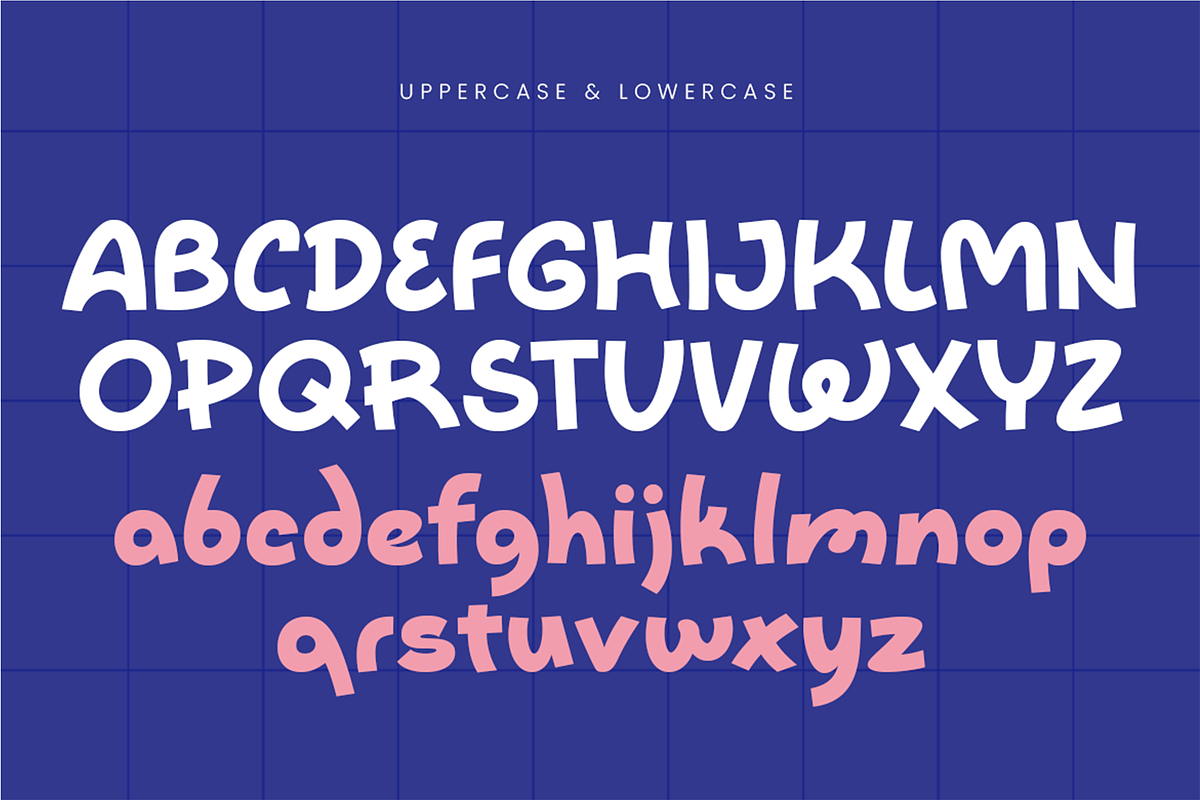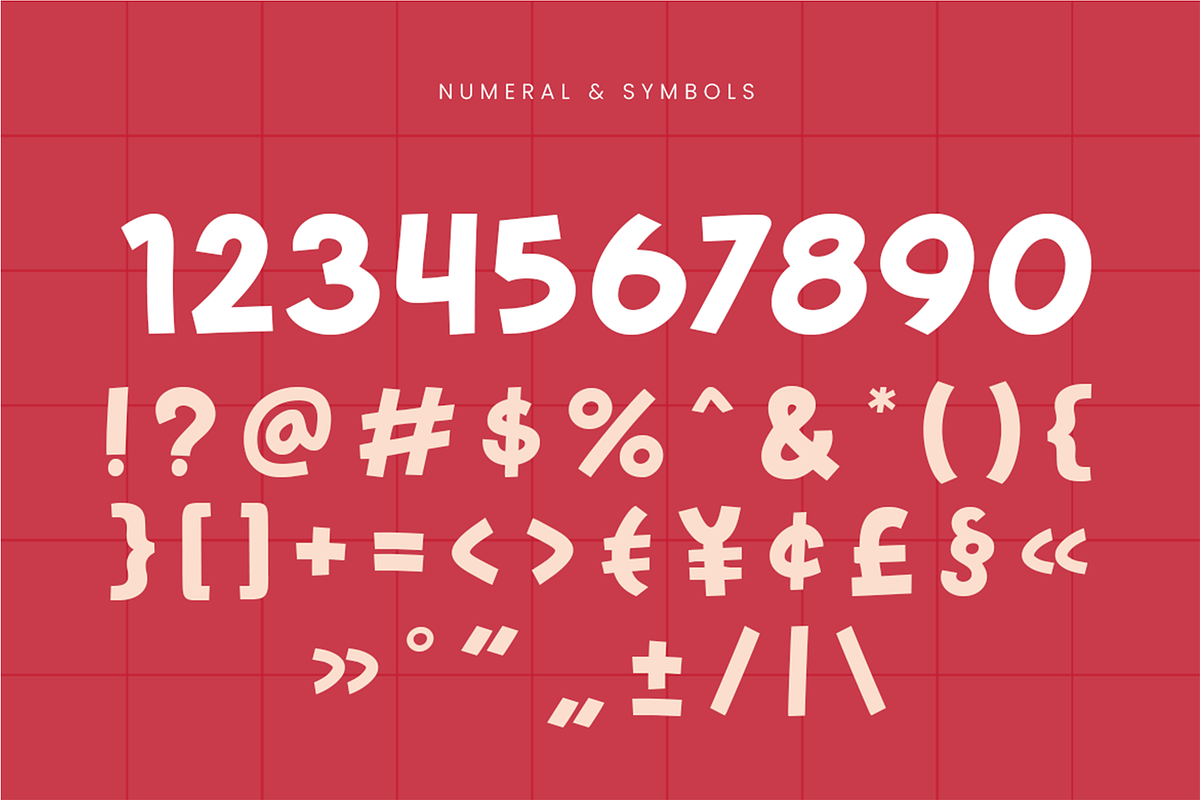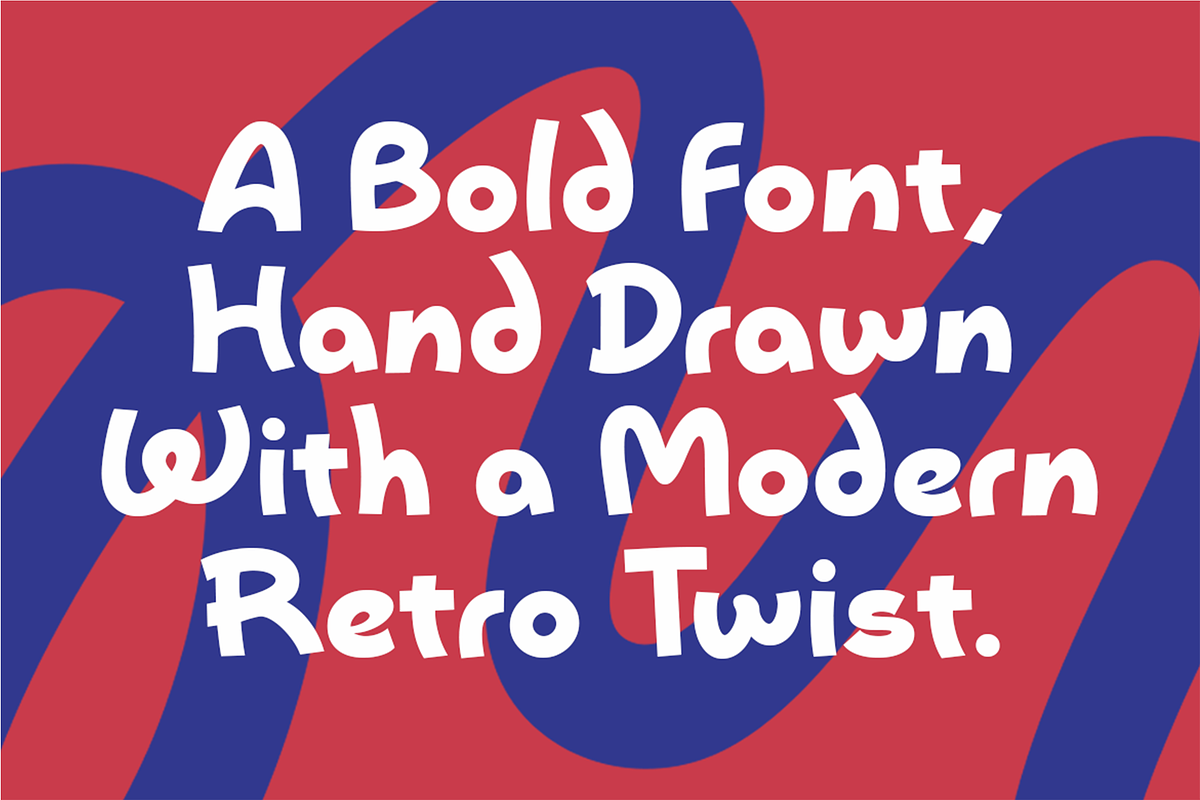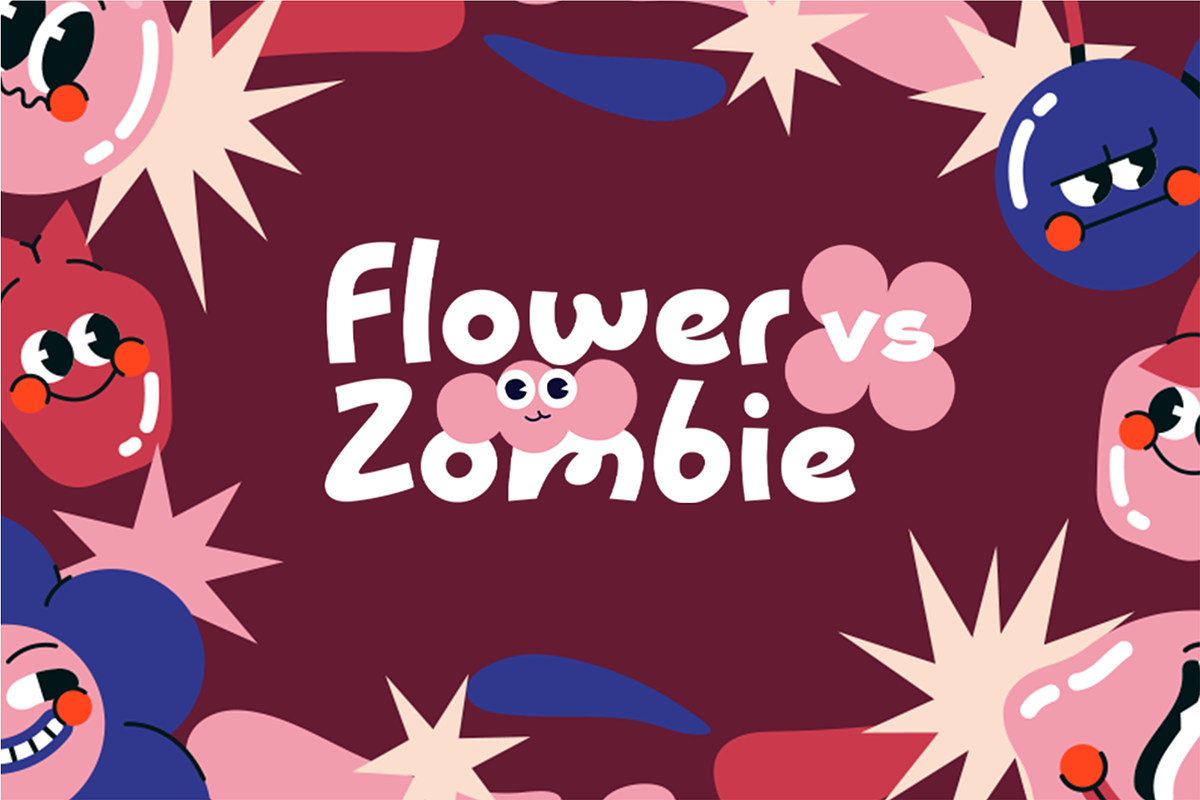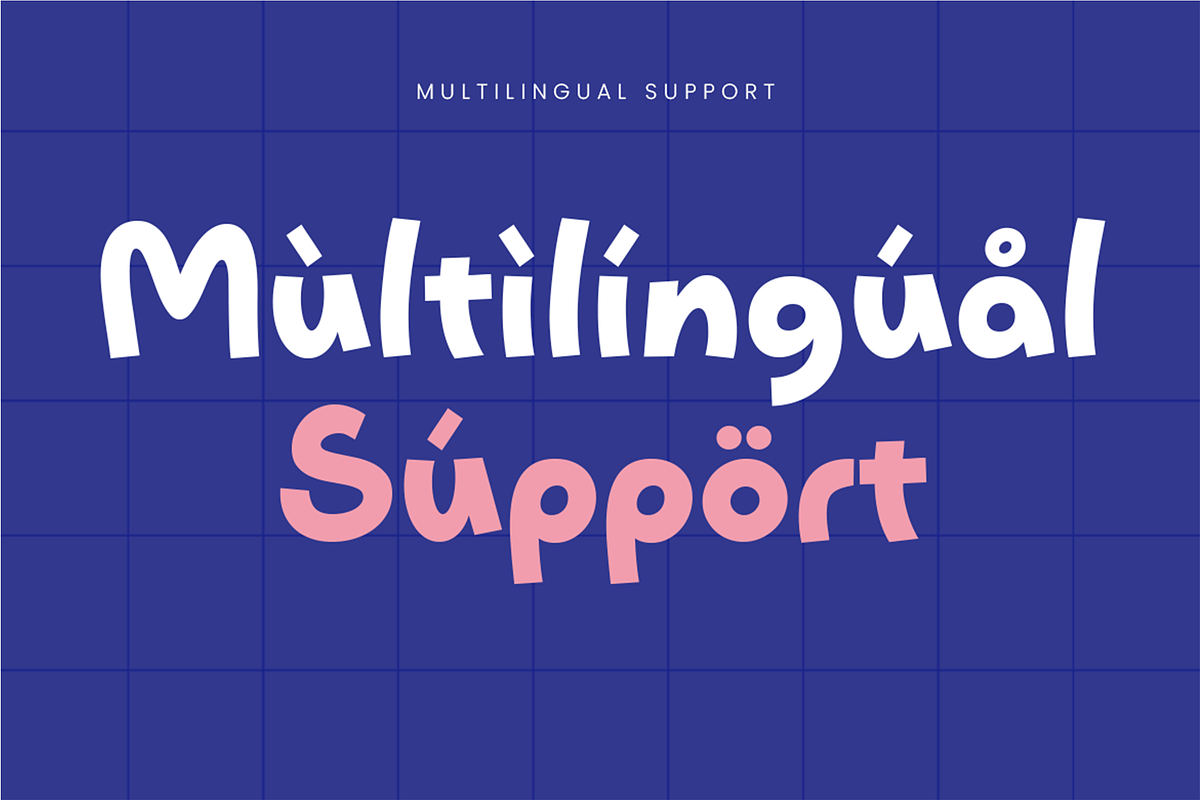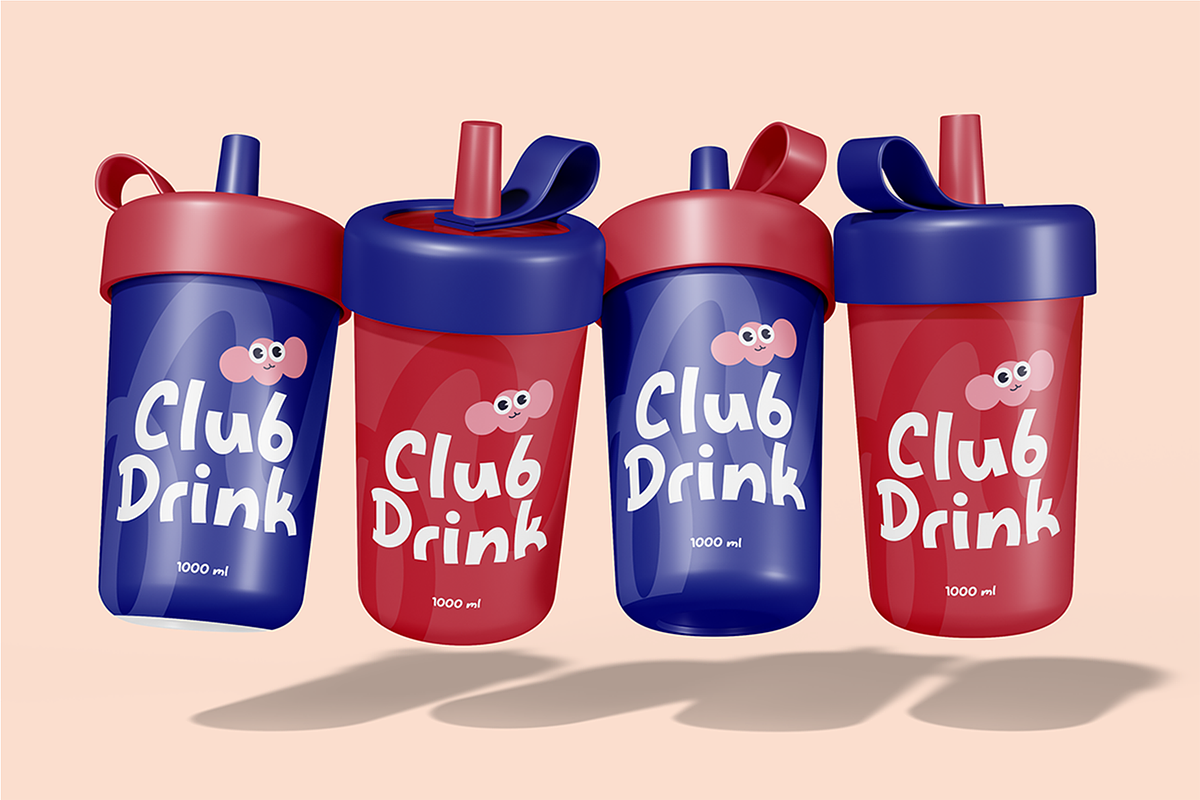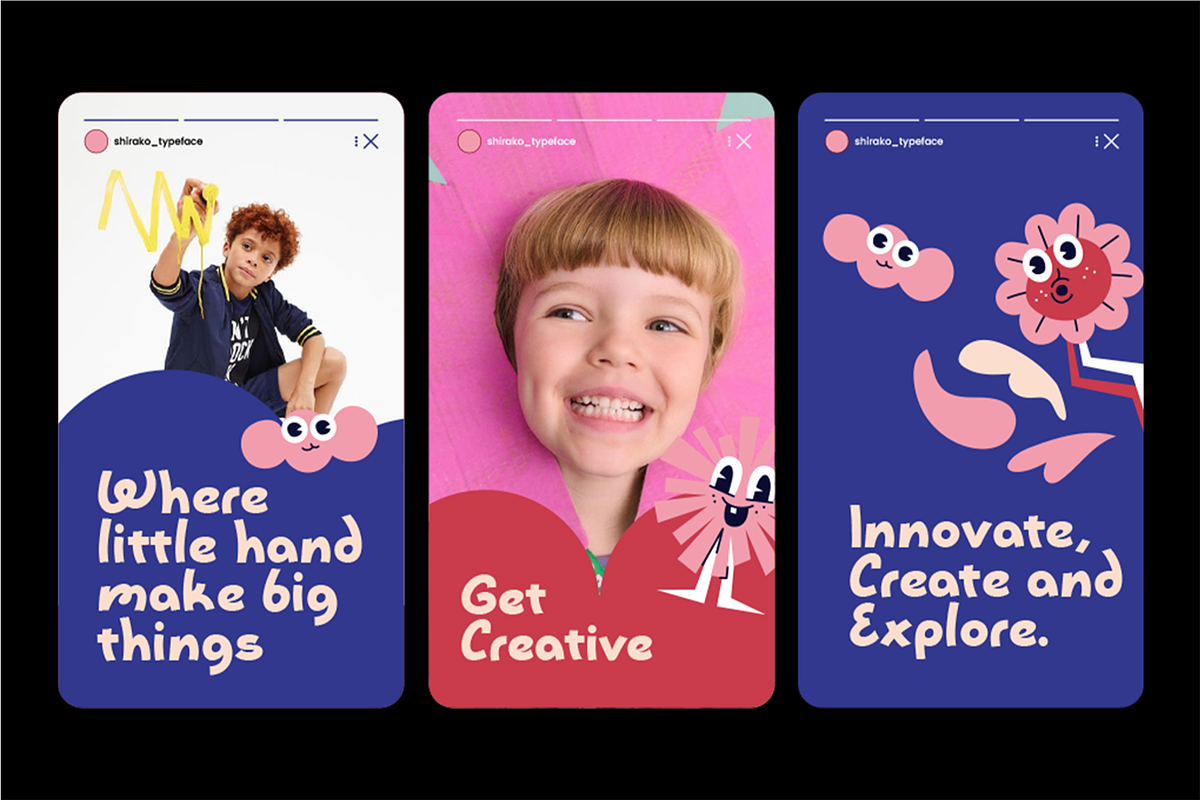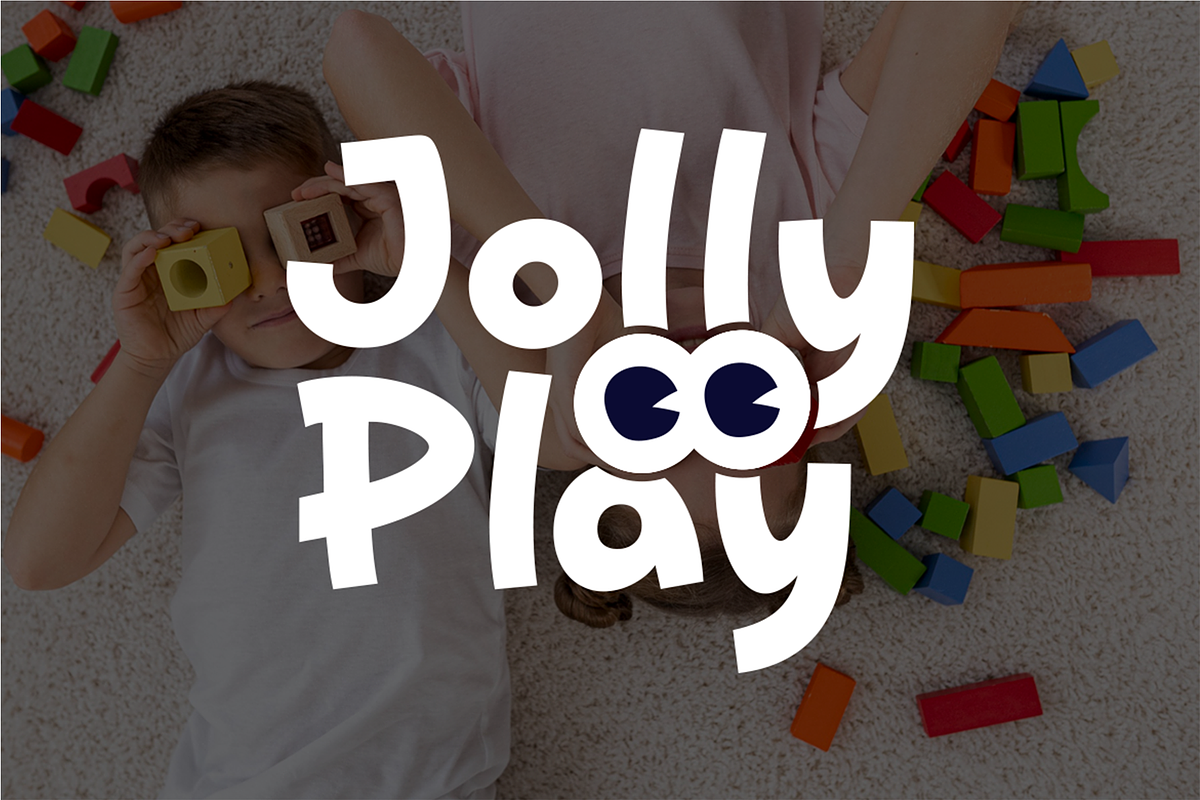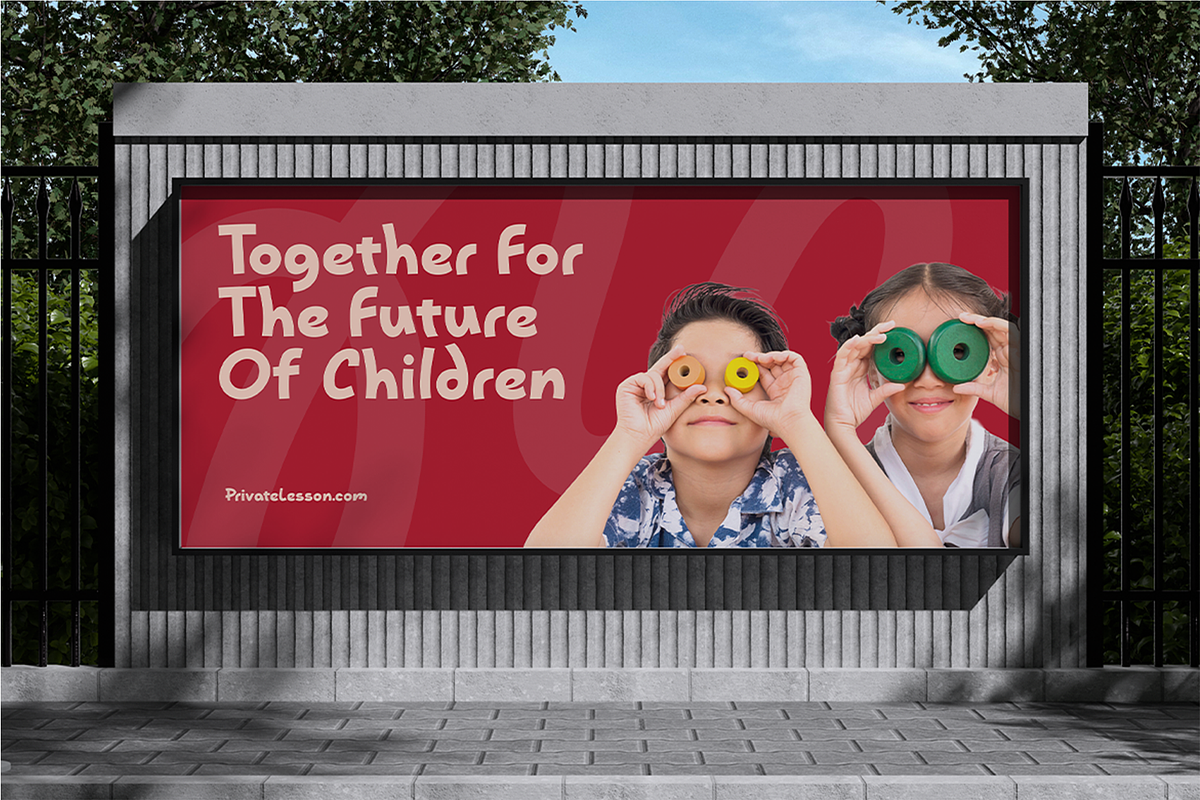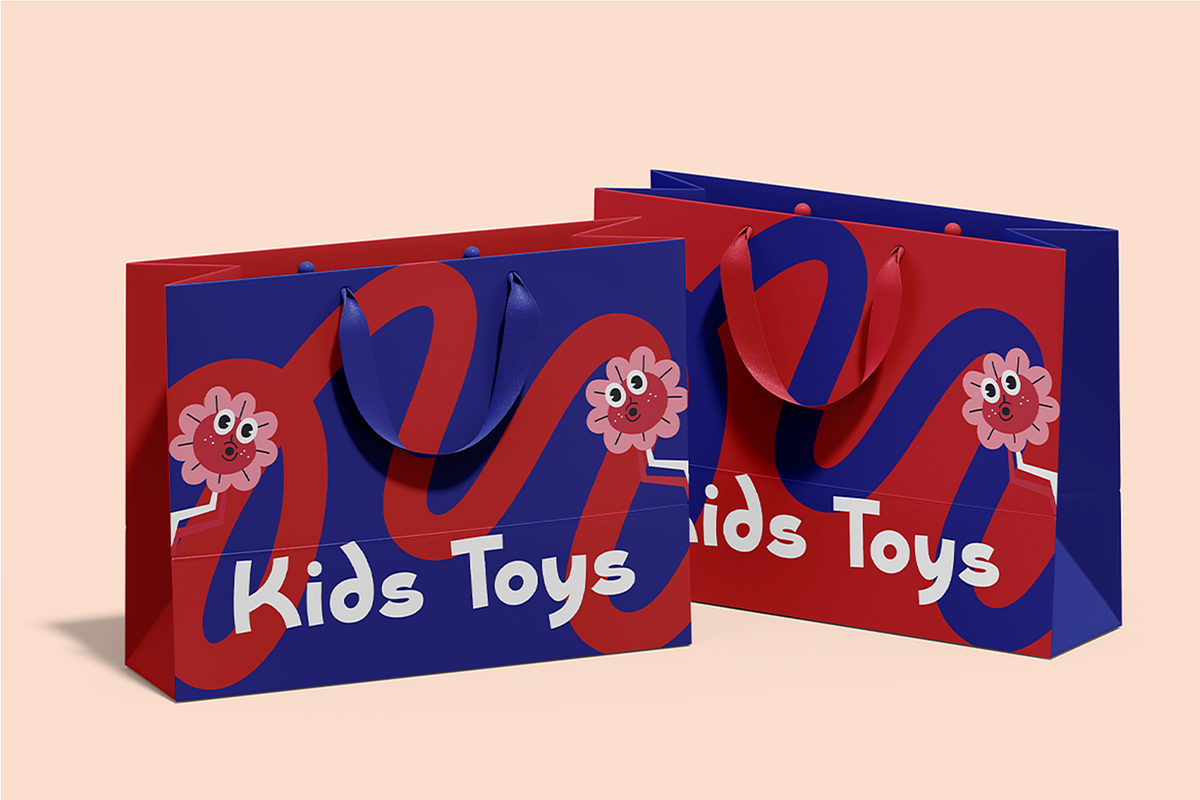
Shirako - Bold Fun Font for Branding
SHIRAKO - Bold Fun Font for Branding is a playful hand-drawn display font with a fun, friendly personality. The letters have soft curves, bouncy shapes, and a cute handmade feel that instantly brings warmth to your design. It blends a modern look with a light retro touch, making it feel fresh but still charming. SHIRAKO comes with uppercase, lowercase, numbers, symbols, and multilingual support, so it’s easy to use for many different creative projects.
This font is perfect for kids-related designs like toy packaging, children’s posters, school projects, story books, playful branding, drink labels, social media graphics, and event banners. It works great for anything that needs to feel happy, creative, and full of imagination — from kids clubs and learning centers to fun product packaging and family-friendly campaigns. If you’re looking for a cute display font that feels simple, joyful, and easy to use, SHIRAKO is ready to make your design more fun.
- Upperacase and Lowercase
- Number, Symbol, & Punctuation